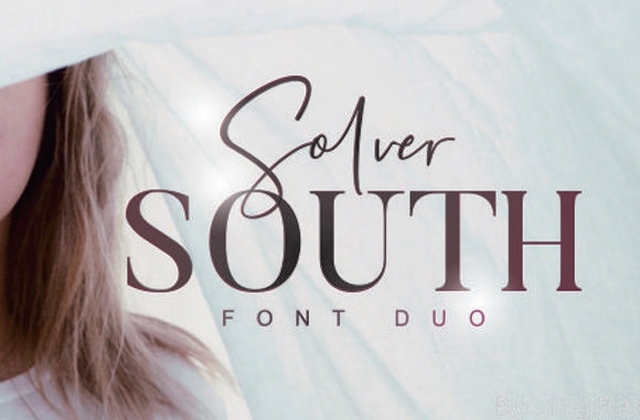
Solver South Duo Font
Solver South Duo Font is perfect for branding, website headings, social media graphics, poster designs, and editorial layouts. Its modern, clean, and versatile design makes it suitable for a wide range of creative projects.
What makes Solver South Duo Font exciting is its unique dual-style letterforms, combining sharp edges with smooth curves, offering a contemporary and stylish aesthetic. The font’s innovative design ensures your text stands out with flair.
The Solver South Duo Font family includes Regular, Bold, Italic, and Duo variations, providing designers flexibility to craft cohesive and visually appealing typographic compositions.